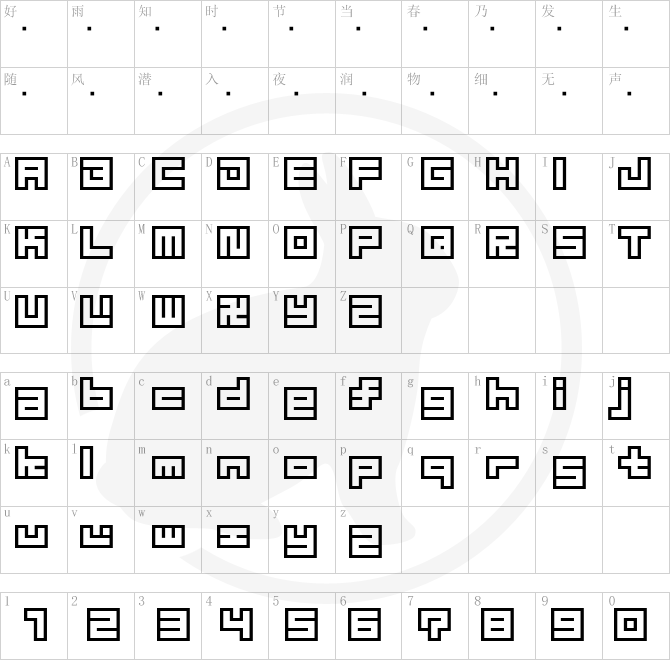
- Font Name:D3 Superstructurism Outline
D3-Superstructurism-Outline.ttf is a very beautiful artistic font, D3-Superstructurism-Outline.ttf is widely used in the design and printing of various books and pictures,D3-Superstructurism-Outline.ttf has a strong visual impact,D3-Superstructurism-Outline.ttf is a commonly used font in newspapers, magazines and books, and is used in posters, e-commerce Poster design, store design, logo design, font design and other fields.D3-Superstructurism-Outline.